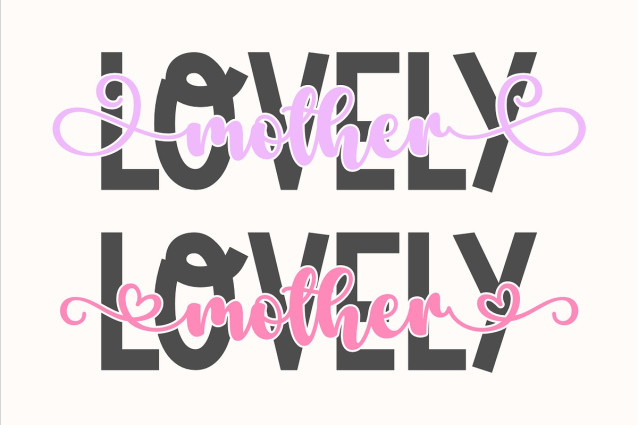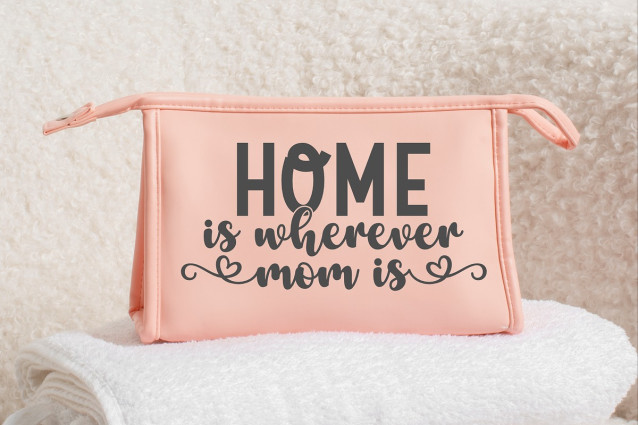
Embrace Mother’s Font Duo
Embrace Mother’s Font Duo, with this charming font duo! With a bold, playful sans serif that radiates joy, paired with a delicate heart-shaped serif, this perfect combination creates an image that is not only harmonious but irresistibly warm. Elevate your wedding stationery, create memorable invitations, infuse love into every design, and build a feminine brand with a modern yet timeless appeal that truly connects. Make this Mother’s Day unforgettable – one beautiful letter at a time.